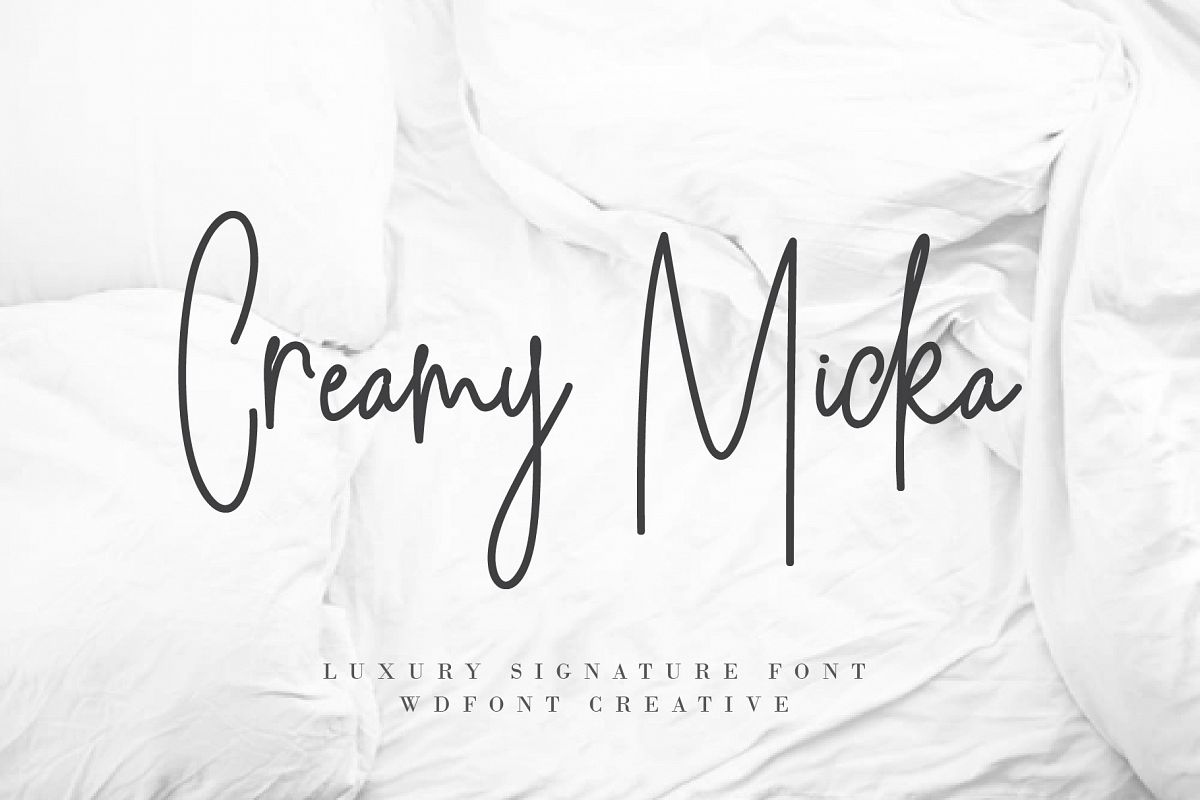
Creamy Micka | Luxury Signature Font
Introducing
Creamy Micka | Luxury Signature Font.
I had this project in my mind long time ago. As a graphic designer, works a lot on creating branding, we often are requested to design a logo in Signature style, but with the vibe of real hand lettering. So, this font is an embodiment of this idea. This is perfect for BRANDING, and various other designs.